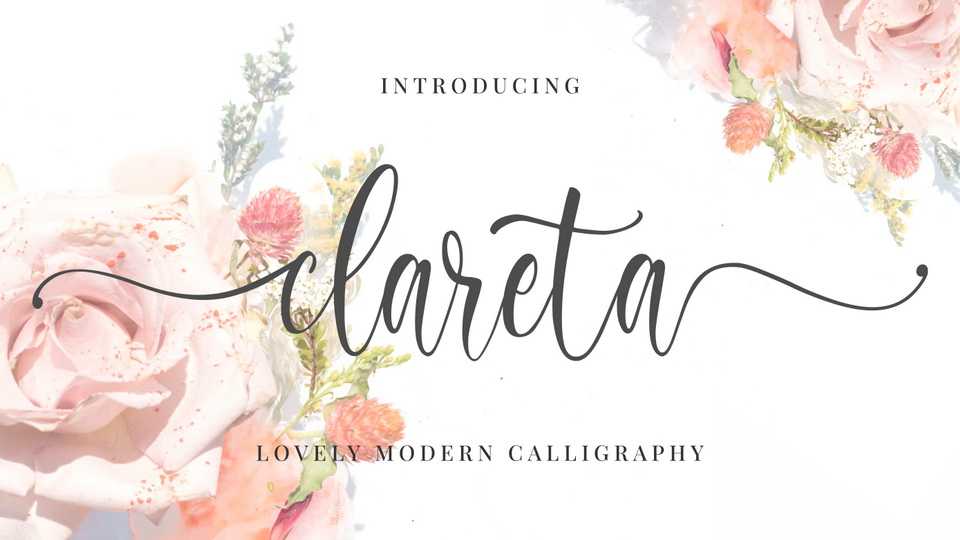
Download Clareta font, a lovely calligraphy script with a beautiful combination of timeless elegance and authentic calligraphy. Clareta will add a romantic feeling to any design!
Designer: R Studio